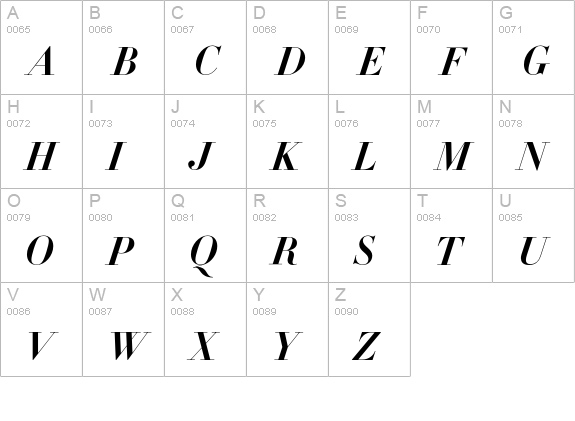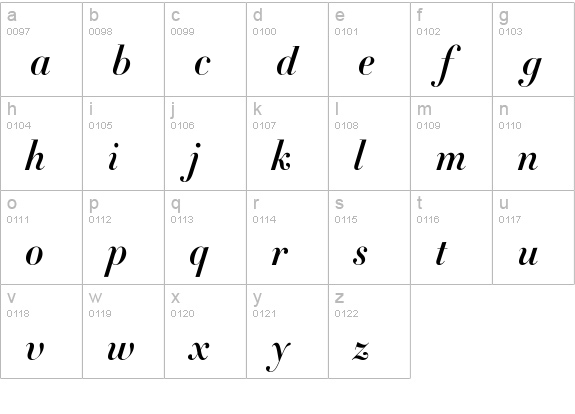
Didot-HTF-B24-Bold-Ital Font Details
Didot-HTF-B24-Bold-Ital is a strong, high-contrast variant in the Didot typeface family \xE2\x80\x94 well suited to headlines, attention-grabbing titles, and strong calls-to-action.
Didot-HTF-B24-Bold-Ital is a stunning and elegant font that exudes sophistication and class. With its bold and italic design, this font is perfect for creating eye-catching headings, titles, and logos. The sharp serifs and clean lines give it a timeless and refined look that will elevate any design project. The best part is that Didot-HTF-B24-Bold-Ital is available for free download at FontsMarket.com. This means you can easily access this beautiful font and use it in your personal or commercial projects without any cost. Don't miss out on the opportunity to add this exquisite font to your collection and enhance your designs with its luxurious aesthetic. Download Didot-HTF-B24-Bold-Ital today and make your projects stand out with its sophisticated charm.